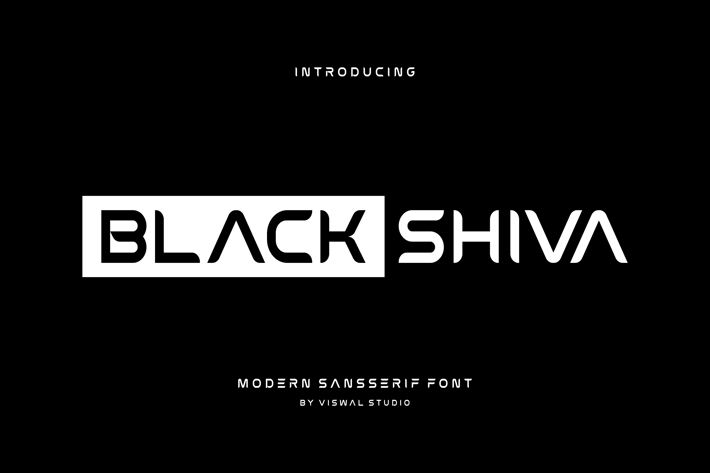
Black Shiva - Modern Sans Font
Presenting Black Shiva - Font is suitable for badge, labels, logo, branding, magazine, poster and etc. Our fonts have Uppercase & Lowercase, Numeral & Punctuation, Multilingual support and Opentype Features. For Amazing designs you can mix with other fonts as a complement.